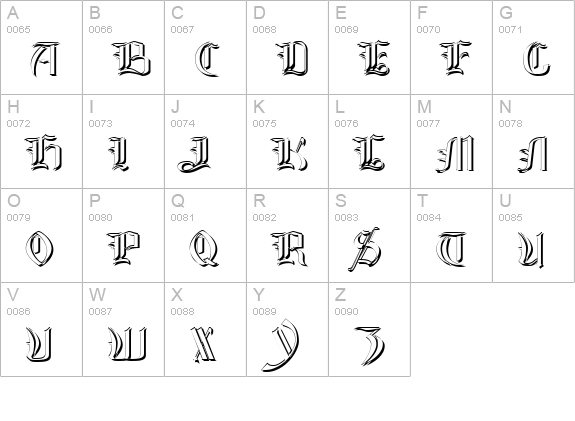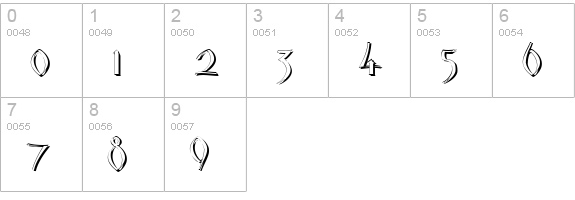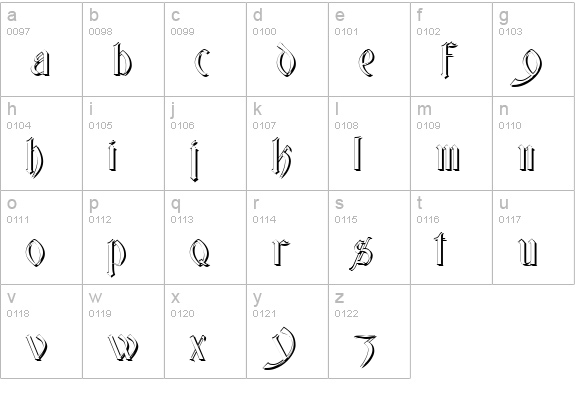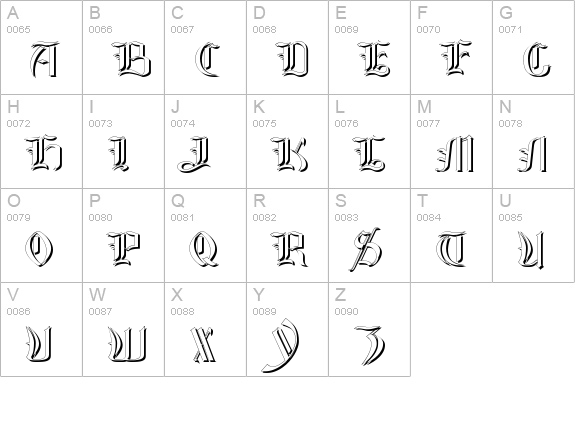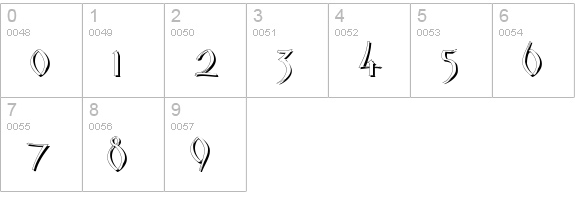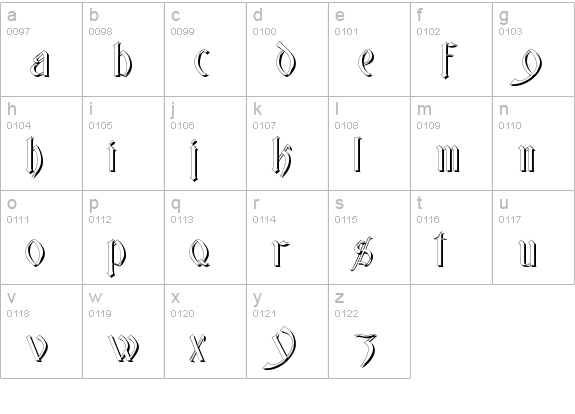
Glastonbury Wide Shadow Font Details
Glastonbury Wide Shadow is a distinctive, extended-width variant in the Glastonbury typeface family \xE2\x80\x94 well suited to design and typography projects.
Glastonbury Wide Shadow font is a stunning display typeface that exudes elegance and sophistication. With its bold, wide shadow design, this font is perfect for creating eye-catching headlines, logos, and branding materials. The unique shadow effect adds depth and dimension to any text, making it stand out in a stylish and modern way. What sets Glastonbury Wide Shadow font apart is its versatility - it can be used for a wide range of design projects, from posters and flyers to packaging and social media graphics. Whether you're working on a professional design project or a personal creative endeavor, this font is sure to elevate your work and make a lasting impression. The best part? Glastonbury Wide Shadow font is available for free download at FontsMarket.com. Now you can access this beautiful font without any cost, making it a valuable addition to your font collection. Don't miss out on the opportunity to elevate your designs with Glastonbury Wide Shadow font - download it today and start creating stunning visuals that capture attention and leave a lasting impact.